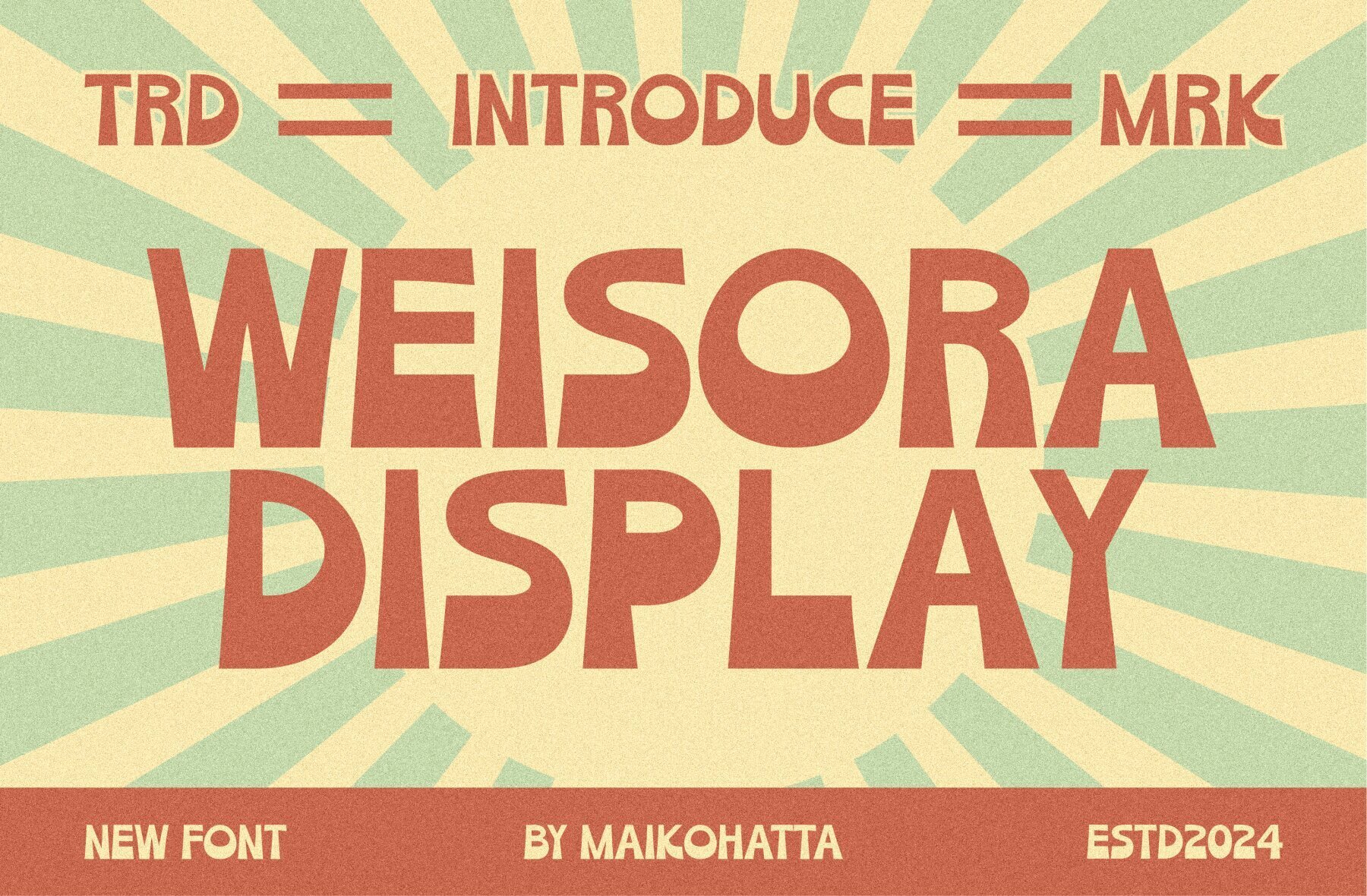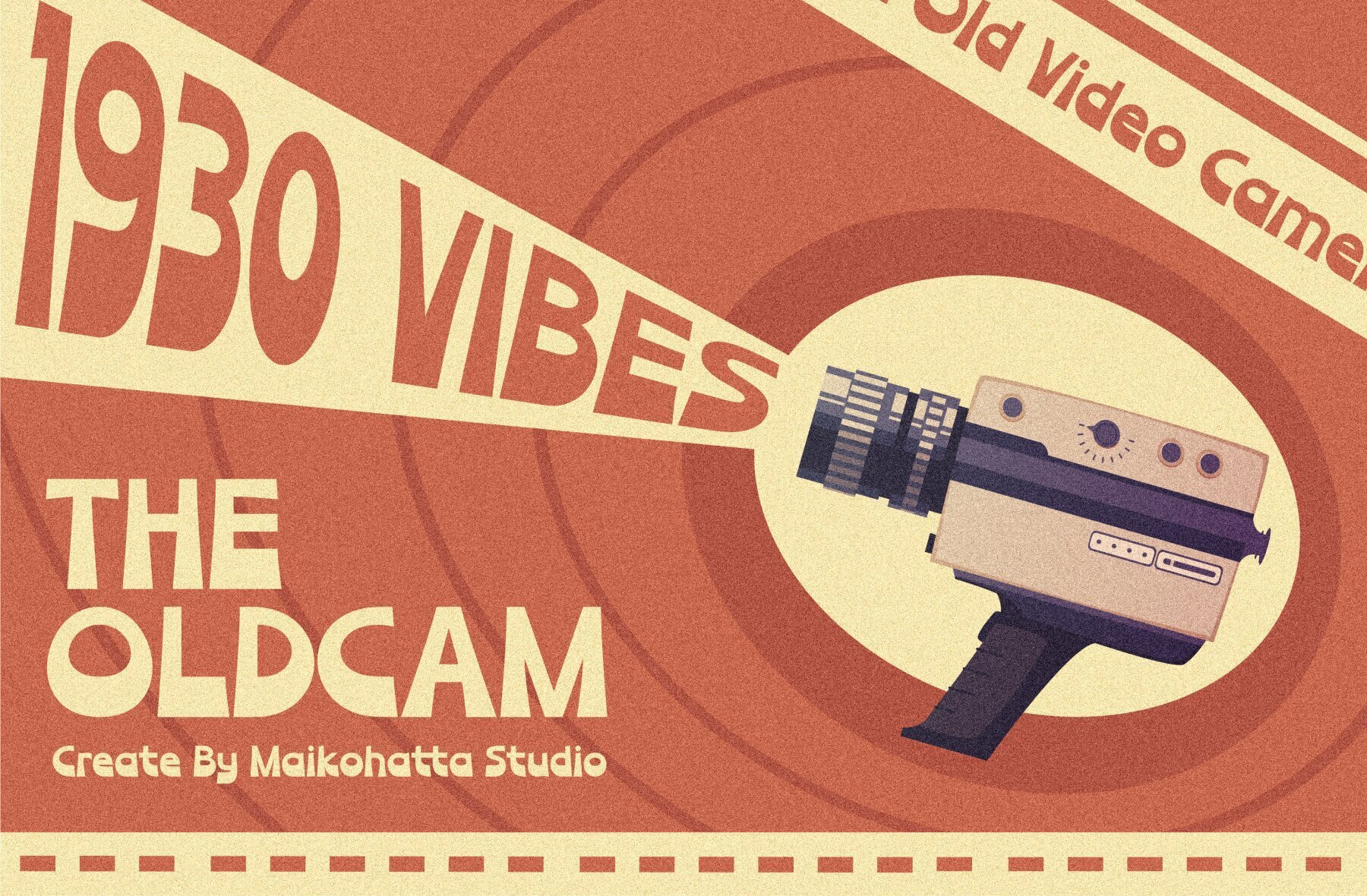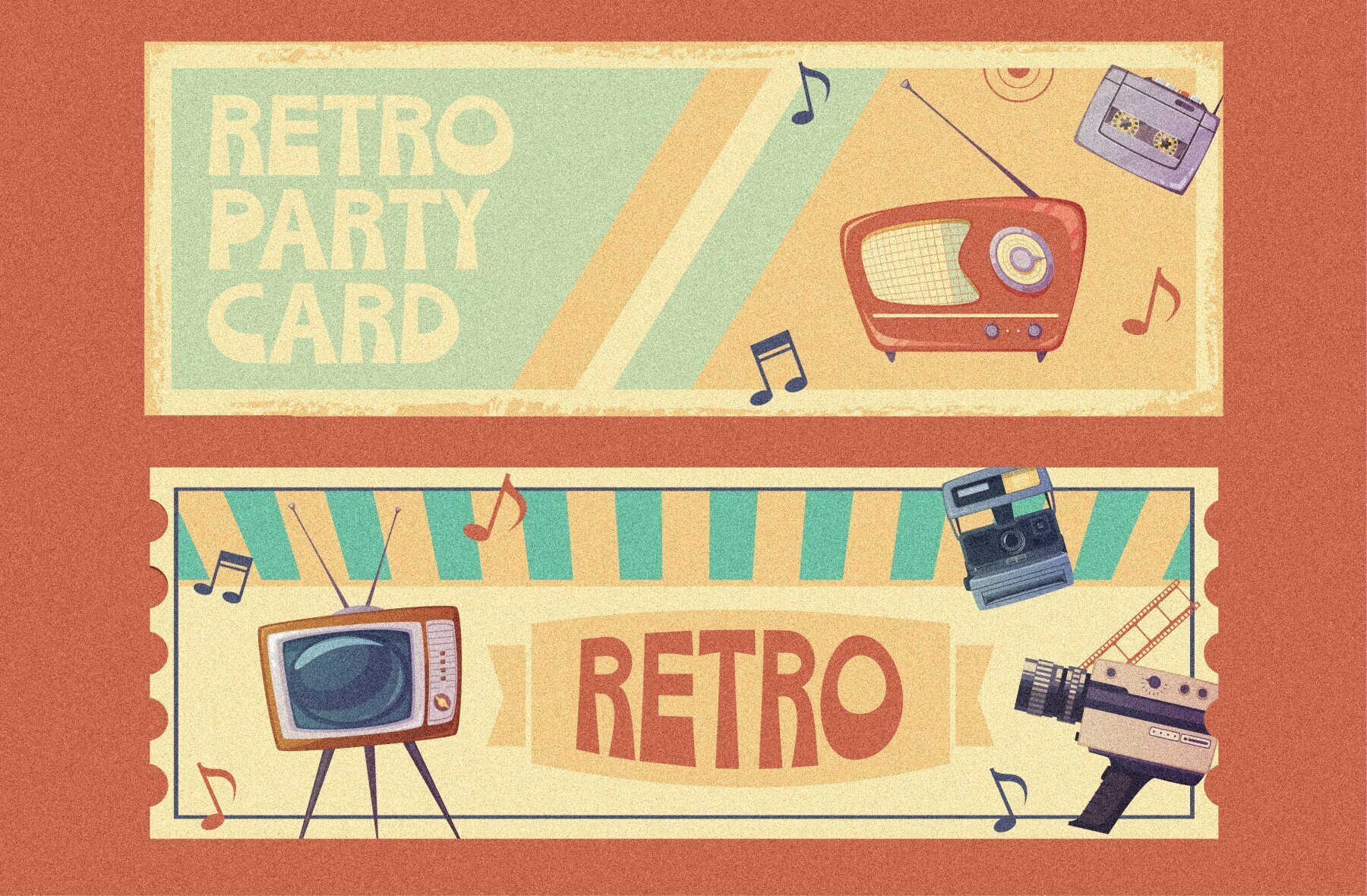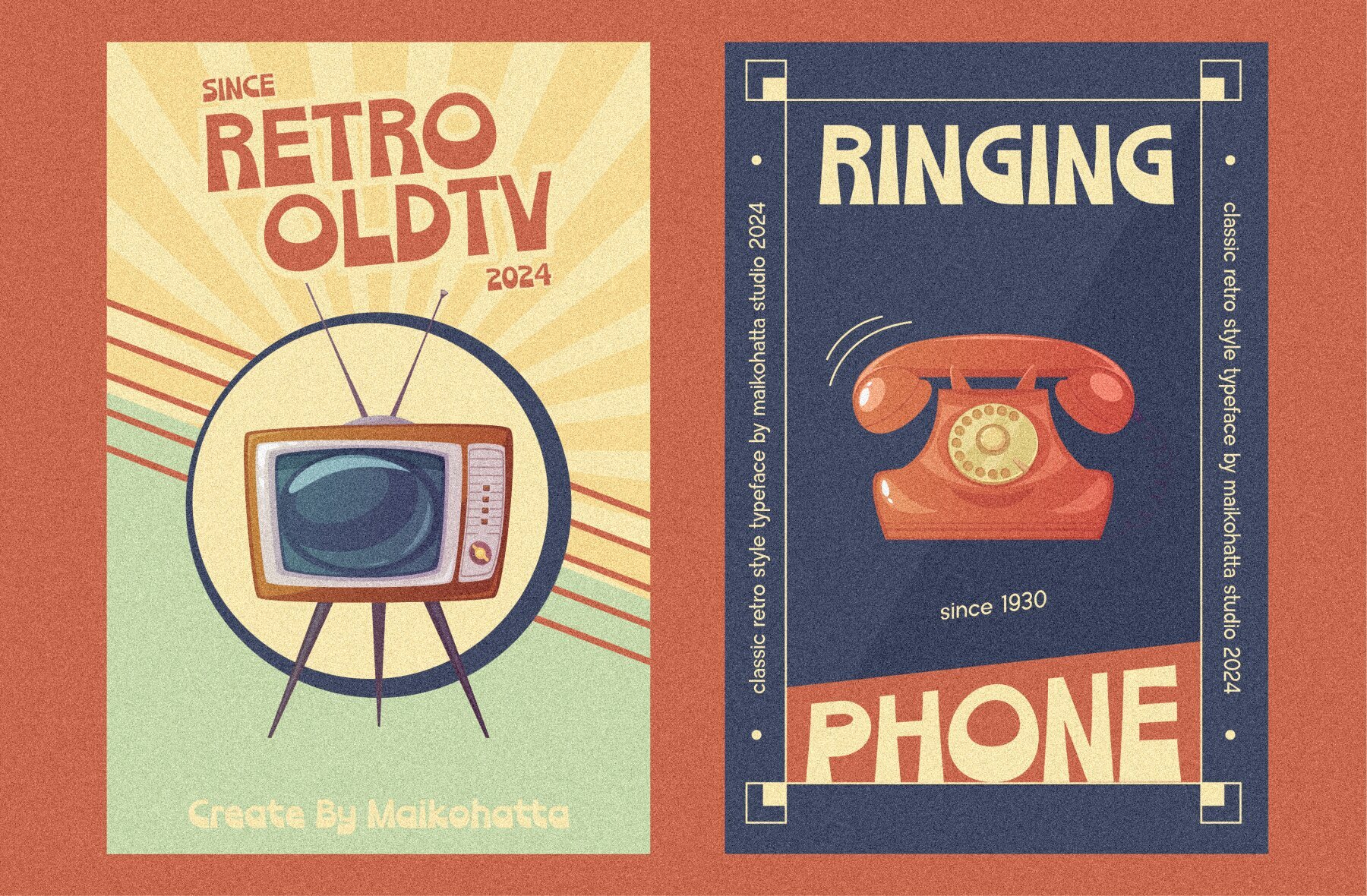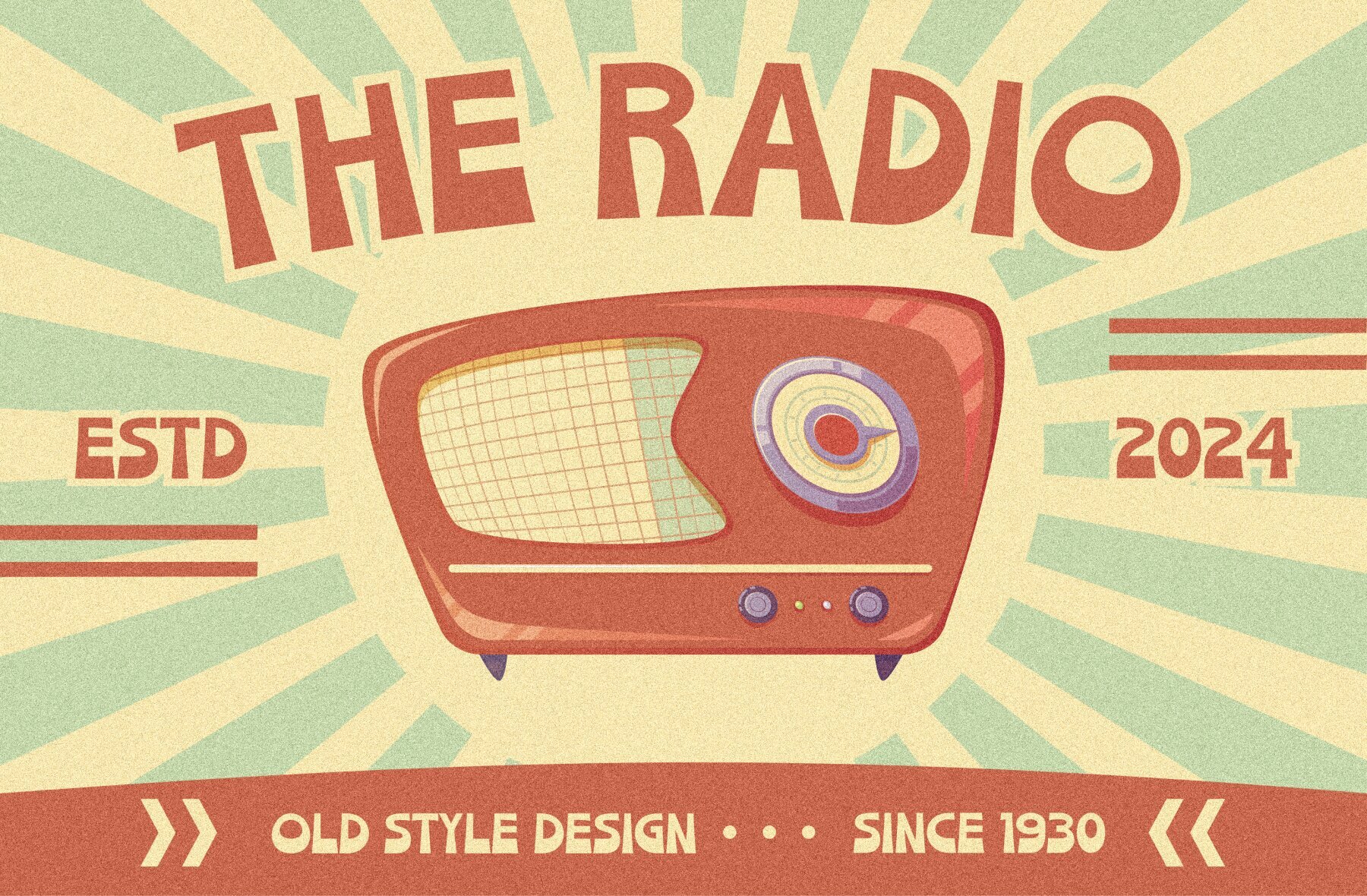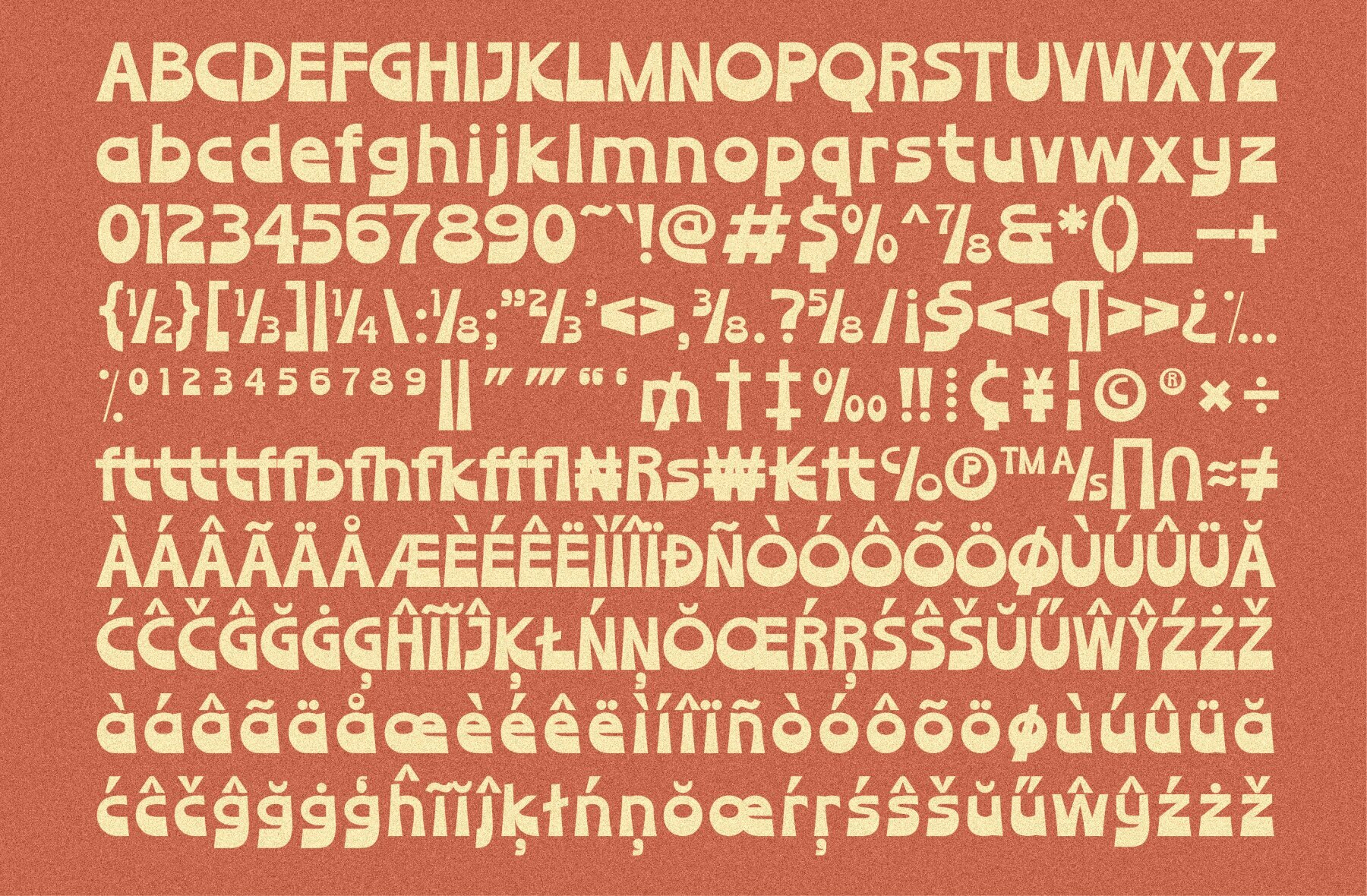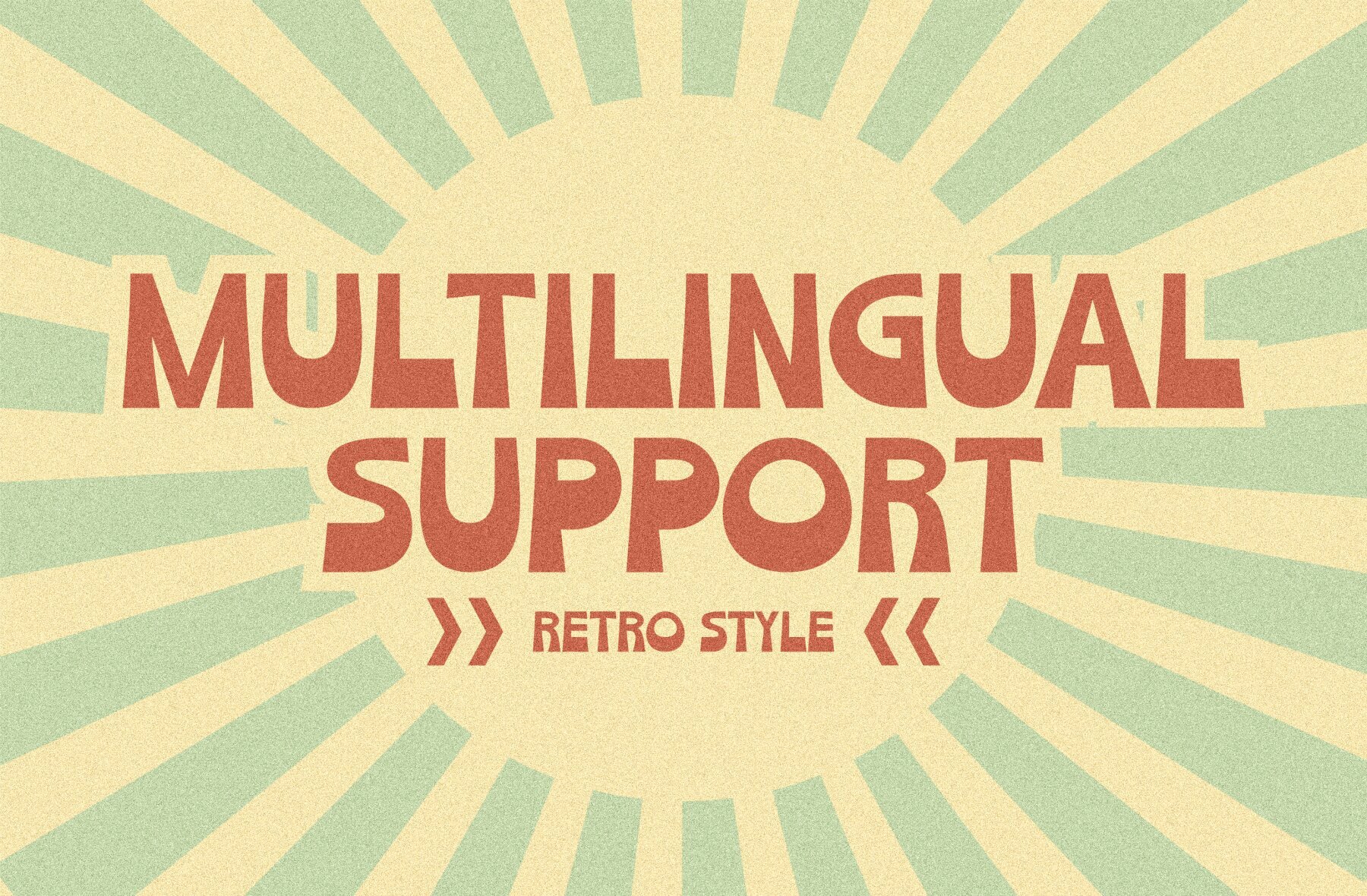
Weisora Font
Weisora Regular
Weisora is a retro display font that exudes joy and cheerfulness with its handwritten style, reminiscent of classic comics and cartoons. Ideal for projects needing a touch of playfulness, this font effortlessly enhances poster designs, invitation cards, comics, and promotional materials targeting a younger audience or anyone seeking a fun aesthetic.
This versatile font includes uppercase, lowercase, multilingual support, and ligatures, making it suitable for a variety of design needs. Whether you're crafting a whimsical invitation or a vibrant poster, Weisora brings a lively and light-hearted atmosphere to your work.